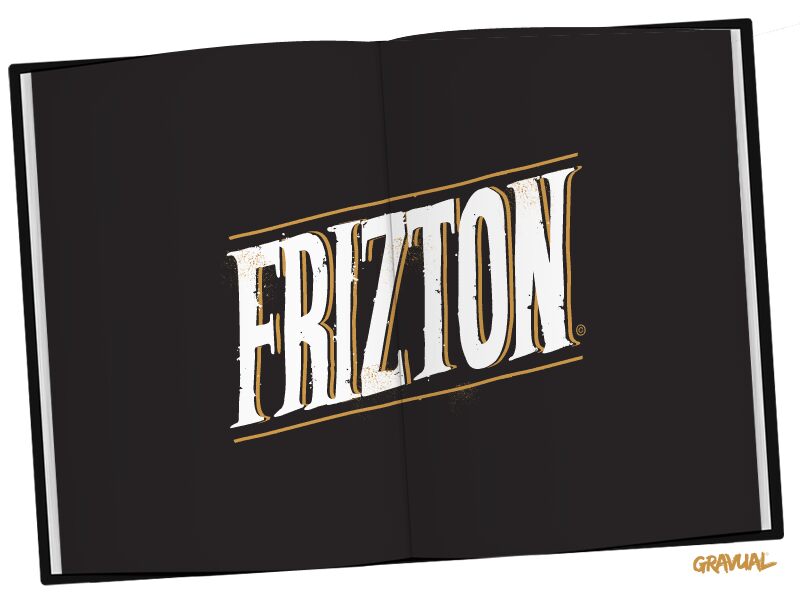
Frizton by Gravual is a free old-school eroded display font with the towering proportions of vintage saloon lettering. Its narrow capitals combine blunt slab serifs, pinched joins, and strong changes between broad and fine strokes. Scattered chips and scratches give the letters a genuinely weathered print surface.
A Western-themed poster is its clearest setting, with the tall silhouette and distressed finish also fitting whiskey packaging, music merchandise, and period entertainment graphics. In those contexts, the lettering can become part of the scene itself, reading like a battered storefront sign or a headline pulled from an aging playbill.